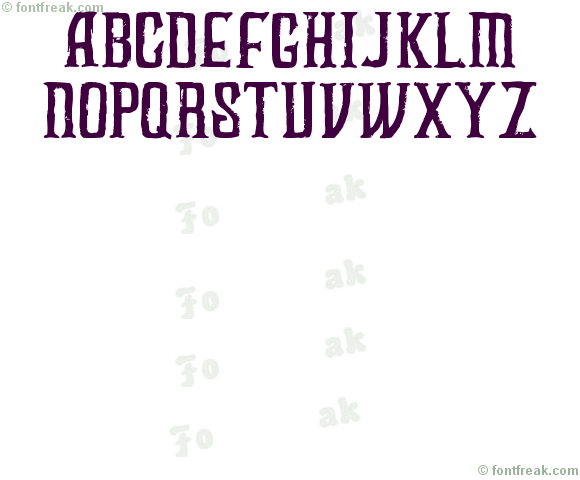
FUZZY bold
The FUZZY bold font, designed by Fonts and Fashion in 2014, is a striking display typeface that captures attention with its unique character. This decorative font features an irregular, fuzzy texture that gives it a playful and whimsical appearance. Its bold weight ensures visibility, making it an excellent choice for a variety of creative projects. The varying stroke weights and the almost hand-crafted quality add depth and personality, making it stand out in an array of applications.
One of the standout characteristics of the FUZZY bold font is its distinctive spacing, which enhances readability while maintaining an artistic flair. This font is particularly suited for use in wedding invitations, where its charming aesthetic adds a touch of elegance. Additionally, it shines in movie posters, bringing an eye-catching element to promotional material. Restaurant menus can also benefit from its playful vibe, making dishes seem more enticing. Furthermore, this font works well in branding for creative businesses, allowing small business owners to convey a fun and approachable image.
The target audience for FUZZY bold includes graphic designers looking for a unique typeface to elevate their projects, content creators seeking to add a touch of creativity to their work, and small business owners aiming to establish a memorable brand identity.